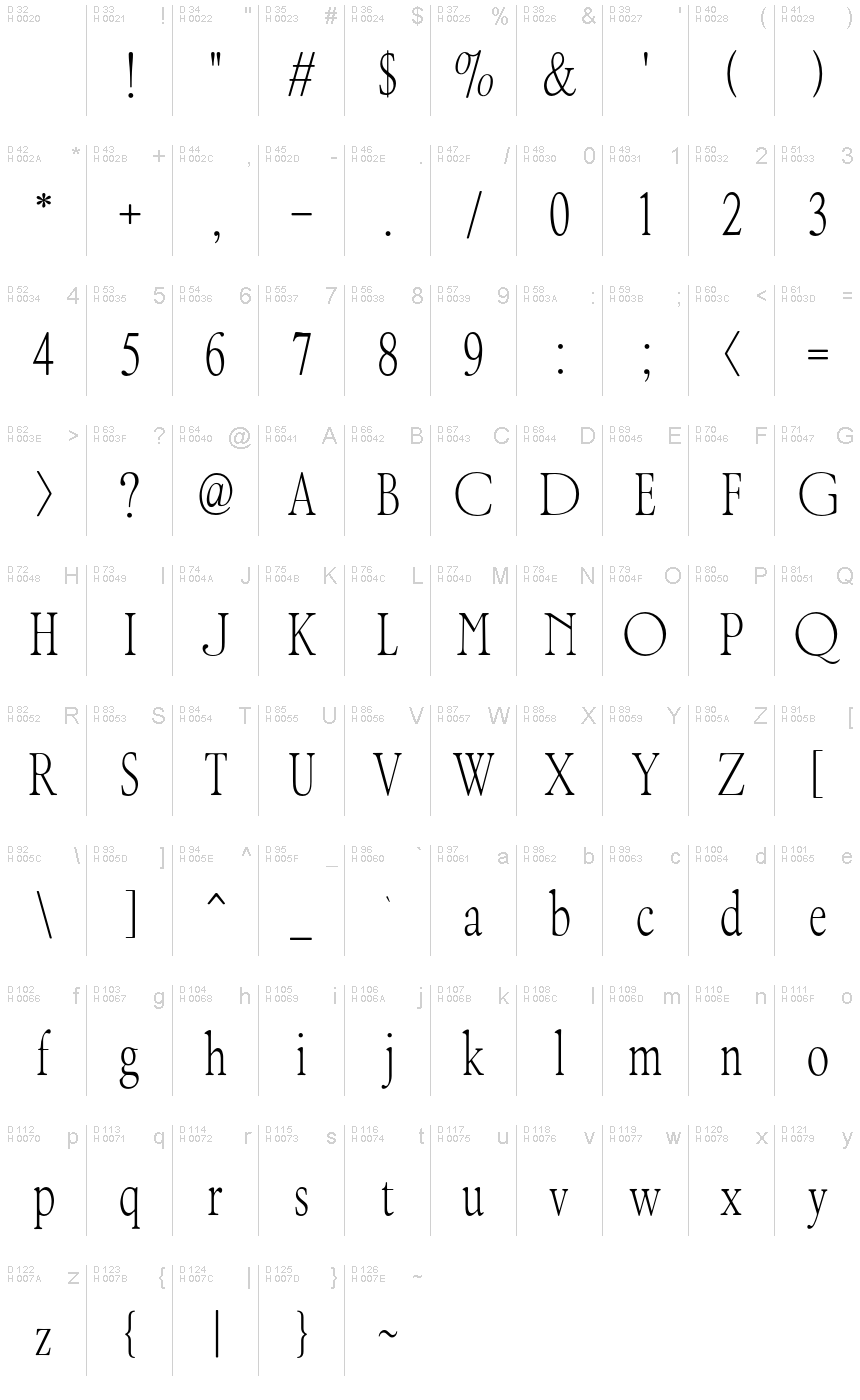
ZT Bros Oskon 90s Extra Light
ZT Bros Oskon 90s Extra Light font is a striking serif typeface that breathes sophistication and reminds one of good old days. It has an elegant look which is characteristic for fonts designed in the nineties, making it highly suitable for vintage yet modern projects.
Designed by Khairunnas from Zelow Type 2023